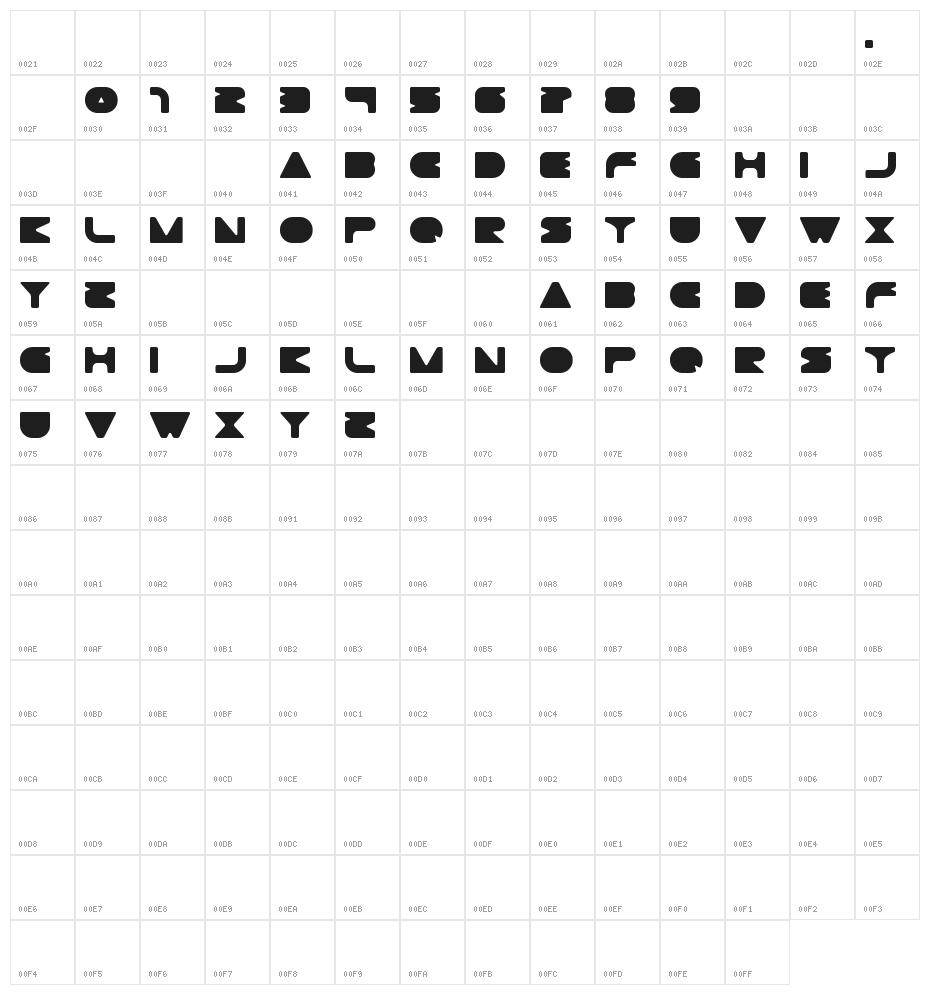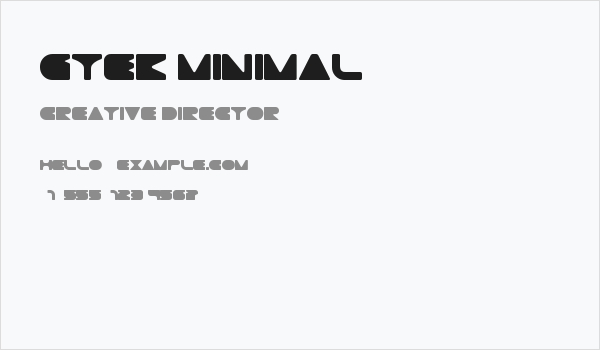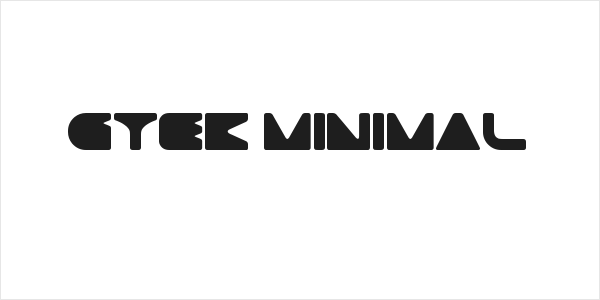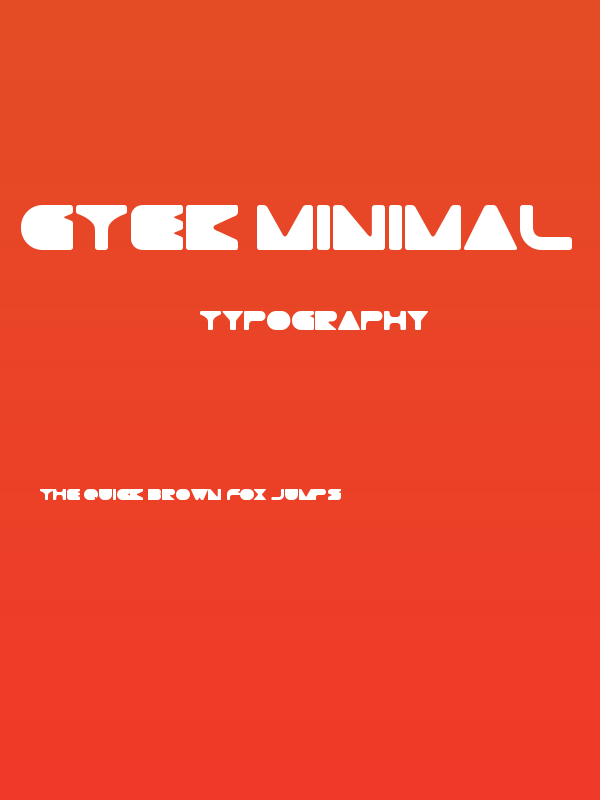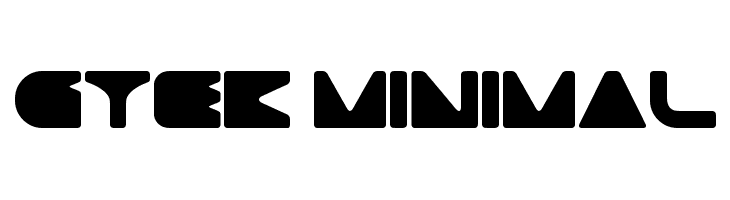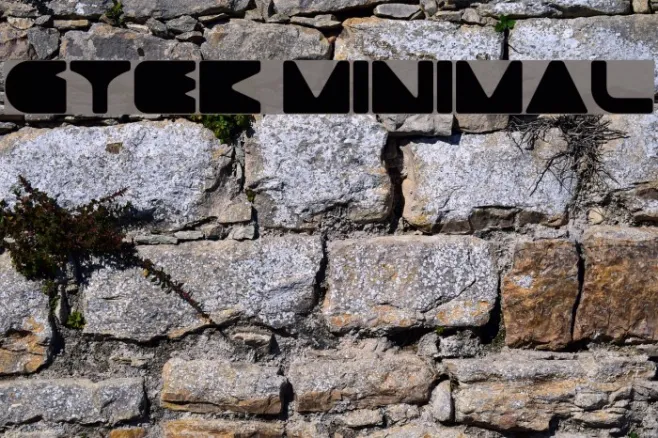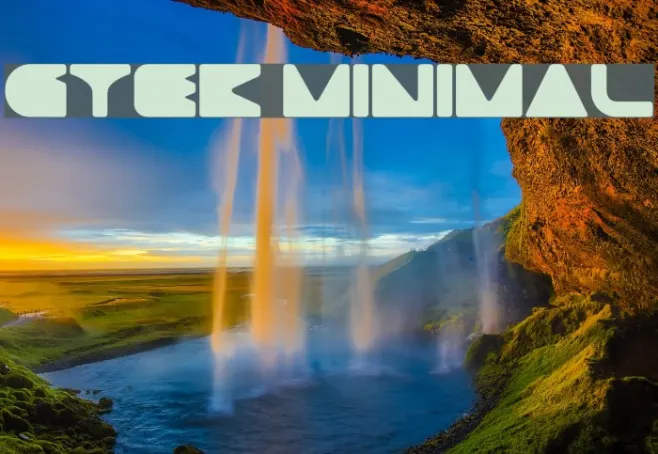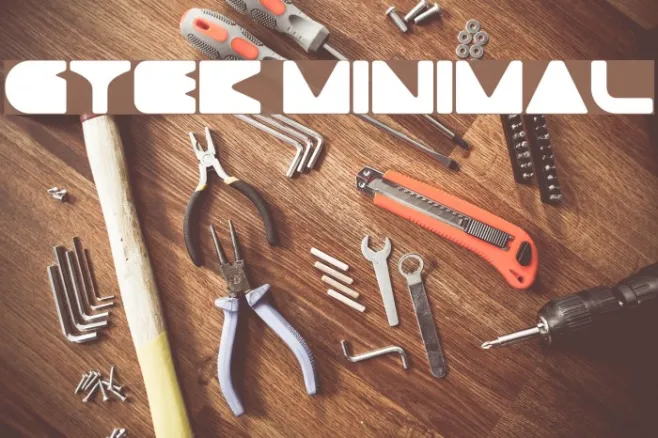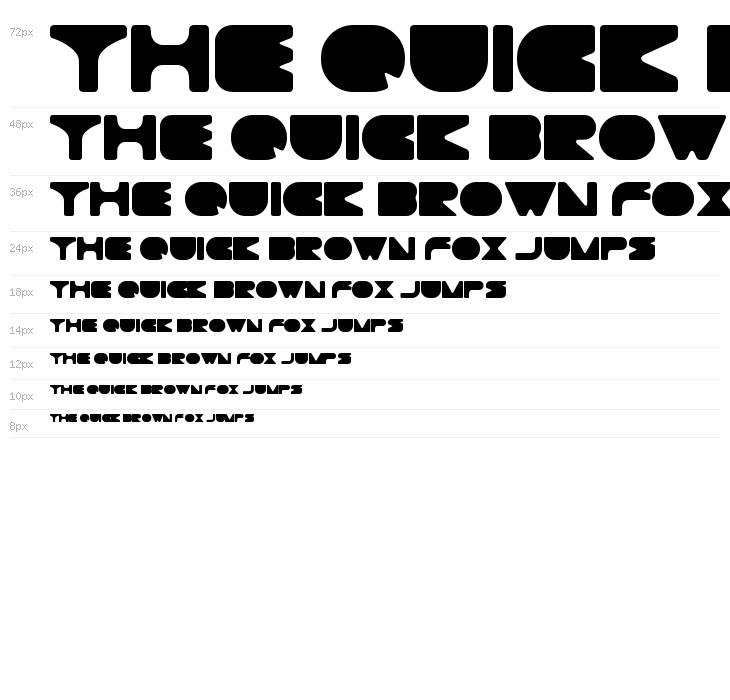
Gtek minimal Font
Gtek minimal Description
This font features a bold and futuristic design with geometric shapes and sharp angles. The characters are constructed with solid, block-like forms that create a sense of strength and modernity. The uppercase and lowercase letters share a consistent style, emphasizing uniformity and cohesion. The numbers and special characters maintain the same bold aesthetic, ensuring a seamless integration across different text elements. The font's unique style makes it stand out, with a distinct look that is both eye-catching and memorable.
| Proposed Projects | Ideal for technology branding, sci-fi movie posters, video game titles, and modern art installations. |